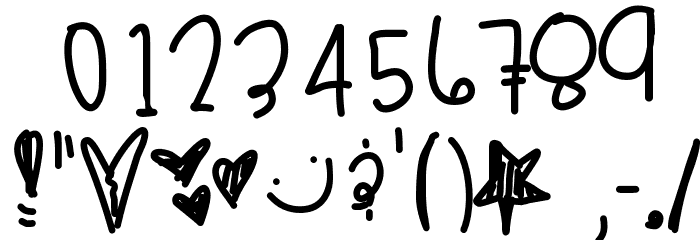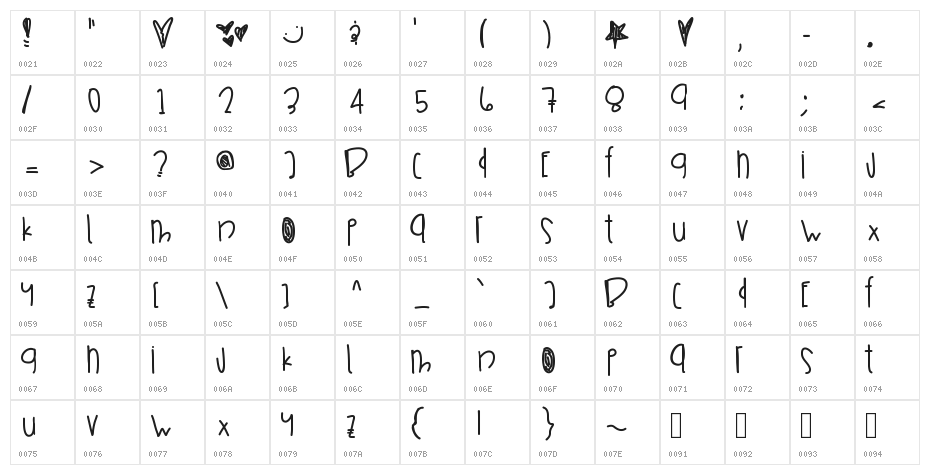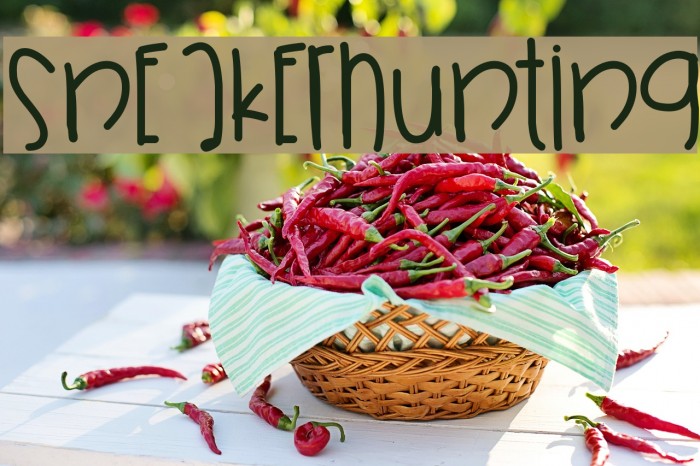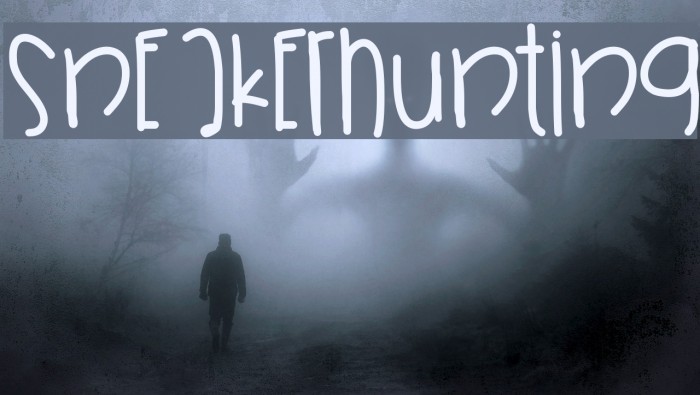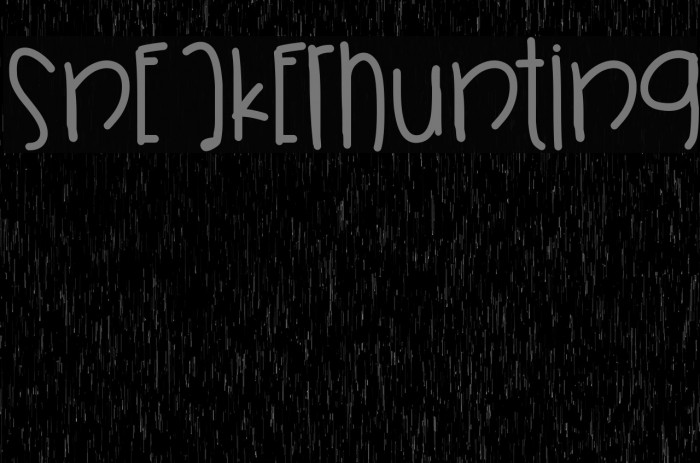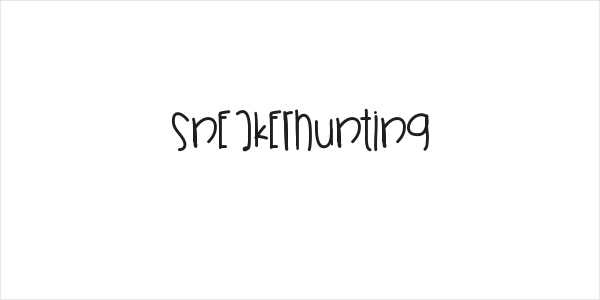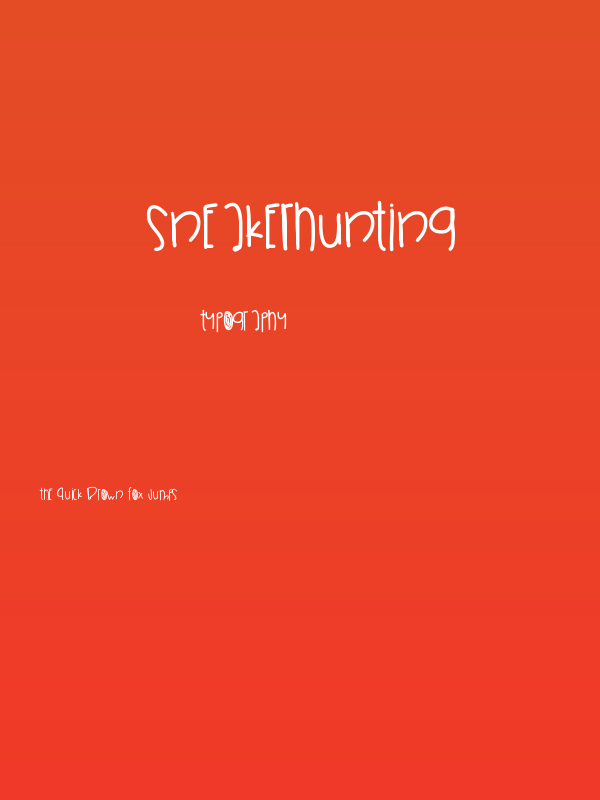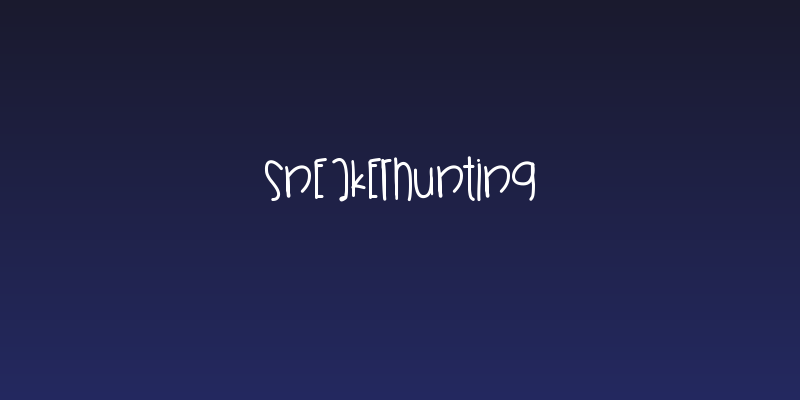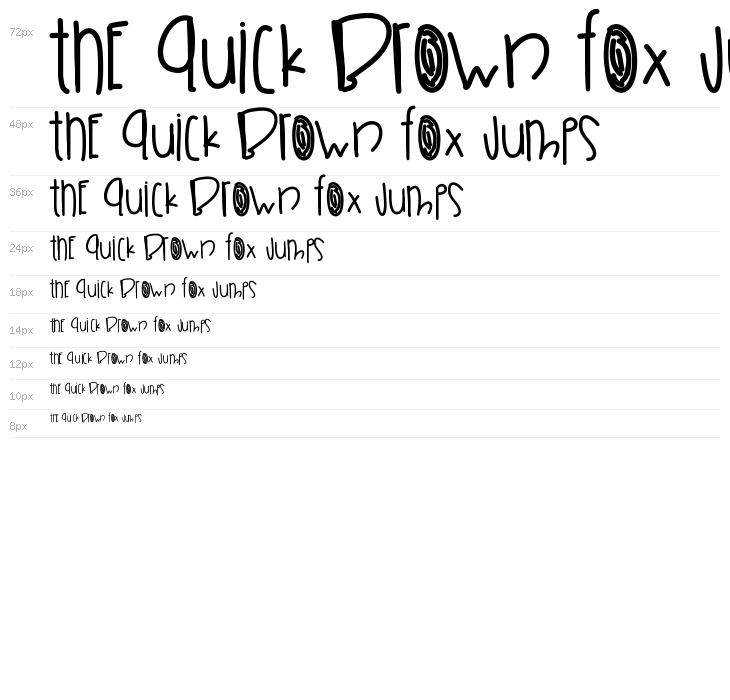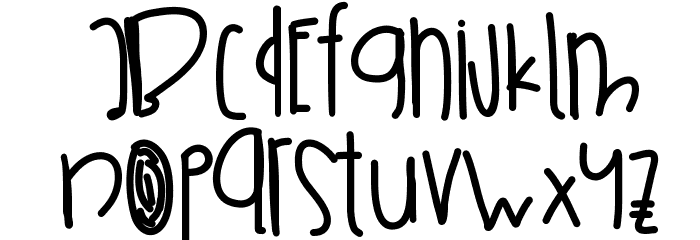
SneakerHunting Font
SneakerHunting Description
This playful and whimsical font features a hand-drawn style with irregular, organic shapes. The letters are tall and narrow, with a slightly uneven baseline that adds to its casual charm. The strokes are bold and consistent, giving the font a strong presence while maintaining a friendly and approachable feel. The characters have a unique, almost doodle-like quality, with some letters featuring loops and swirls that enhance its artistic appeal. The numbers and special characters follow the same playful design, making it versatile for creative projects.
| Use Case | Logos, Posters, Creative projects |
| Proposed Projects | Ideal for children's books, greeting cards, playful branding, and creative posters. |